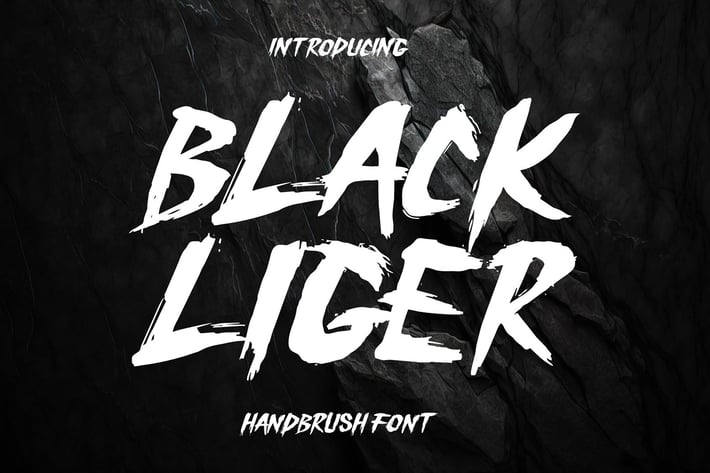
Black Liger - Handbrush Font
Introducing Black Liger – the ultimate Handbrush Font that roars with boldness and raw energy. Perfectly blending the wild intensity of a brushstroke with the elegance of hand-drawn design, Black Liger is crafted to bring a fierce and dynamic presence to your creative projects.
🎨 Wild and Powerful: Black Liger embodies the untamed spirit of a wild cat with its bold and dynamic brushstrokes. Each letter is infused with a sense of strength and vitality, making it ideal for designs that need a powerful and commanding touch.
💥 Bold and Impactful: Designed to make a statement, Black Liger delivers a striking visual impact with its thick, expressive strokes. Whether you're creating posters, logos, or social media graphics, this font ensures your message stands out with a fierce and memorable look.
🖌️ Handbrush Authenticity: The hand-drawn brush style of Black Liger adds a personal and artistic touch to your text. Its natural and organic feel makes it perfect for projects that demand authenticity and creativity.
🌟 Versatile Application: From edgy apparel branding and music covers to bold event promotions and eye-catching advertisements, Black Liger adapts seamlessly to various design needs. Its versatile style brings a unique and captivating edge to any project.
🖋️ Meticulously Crafted: Each character in Black Liger is carefully designed to maintain high readability while showcasing the intricate details of handbrush artistry. The balance between boldness and elegance ensures your text is both visually stunning and easy to read.
Unleash the wild power of Black Liger – the Handbrush Font that combines fierce energy with hand-drawn elegance. Perfect for making bold, unforgettable statements, Black Liger is your go-to font for adding a dynamic and impactful touch to your designs.